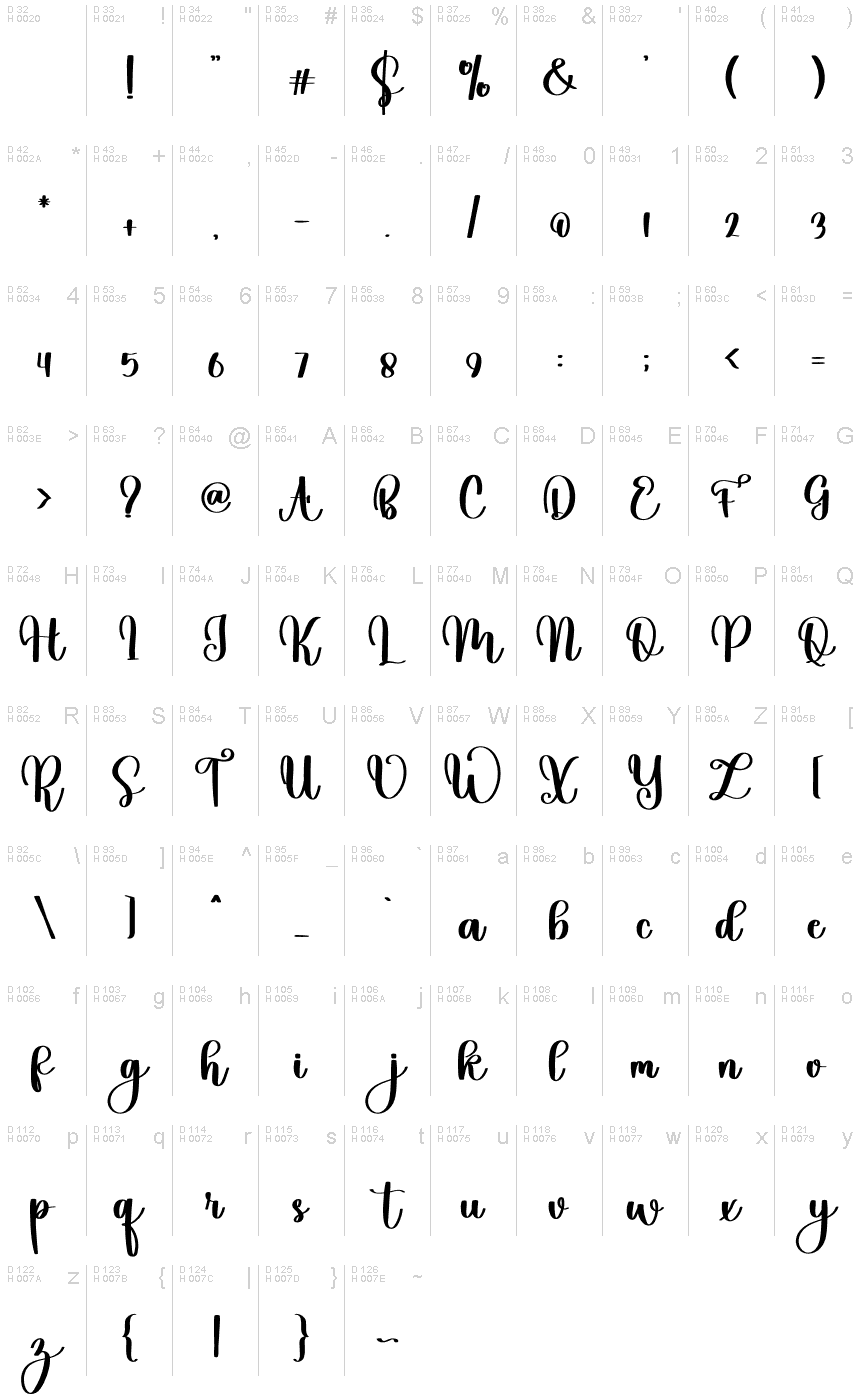
Single
Single, a mesmerizing calligraphy font by FreshtypeINK, exudes grace and elegance. With its semi-light weight, this font adds a touch of sophistication to any project. Perfect for wedding invitations, romantic quotes, or fashion editorials, Single gracefully elevates your designs with its flowing strokes and intricate details. Its versatility makes it suitable for branding projects seeking an air of refinement or delicate logo designs yearning for an artistic touch. Embrace the allure of Single and let its calligraphic charm captivate your audience in all their creative endeavors.